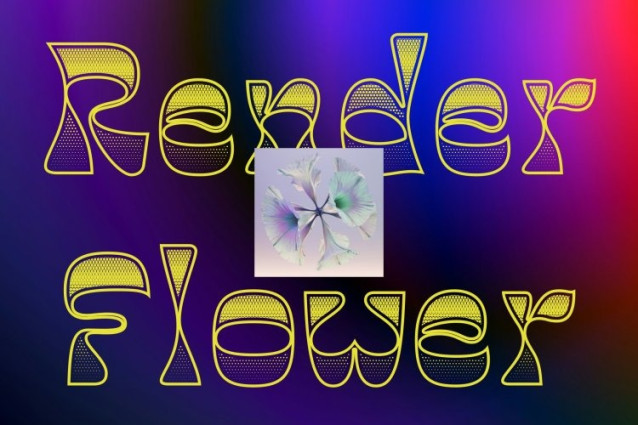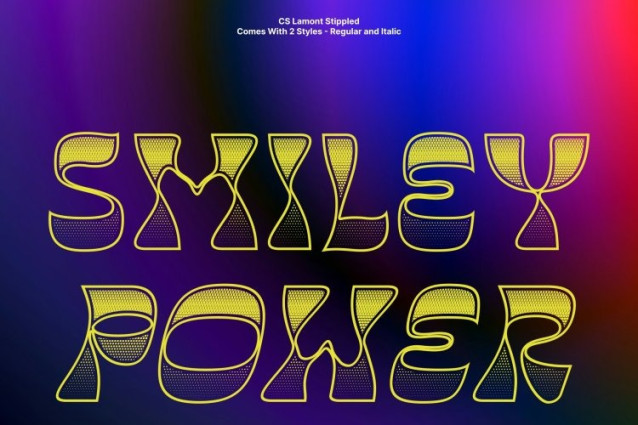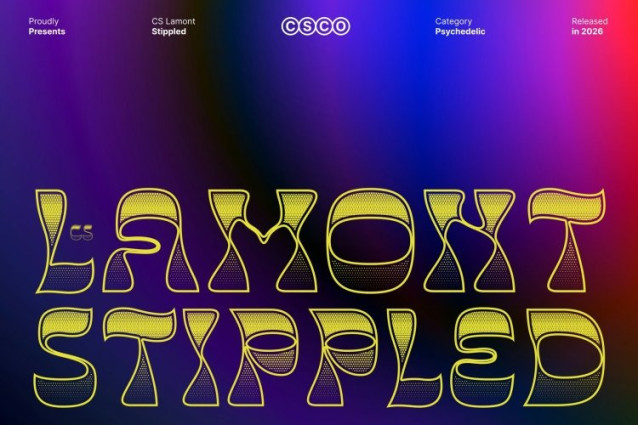
CS Lamont Stippled Font
CS Lamont Stippled Font – This is a bold display font that showcases a striking reverse contrast style, where the outer strokes are thick and dominant while the inner strokes and serifs remain thin and refined. This unexpected construction creates a dynamic visual rhythm that immediately captures attention. The stippled texture adds depth and tactile character, enhancing the font’s strong and memorable appearance.
Retro Funk Meets Contemporary Style
Inspired by vintage typography with a funky retro spirit, this font blends nostalgic charm with modern design sensibilities. Its playful yet confident forms bring personality and creativity to any layout, making it perfect for designs that want to feel expressive, fresh, and visually distinctive.
Bold Versatility for Creative Projects
Ideal for music posters, fashion branding, packaging, headlines, and editorial layouts, this font offers versatility while maintaining a unique voice. Its bold presence and decorative texture ensure your work stands out while still feeling stylish, modern, and full of character.